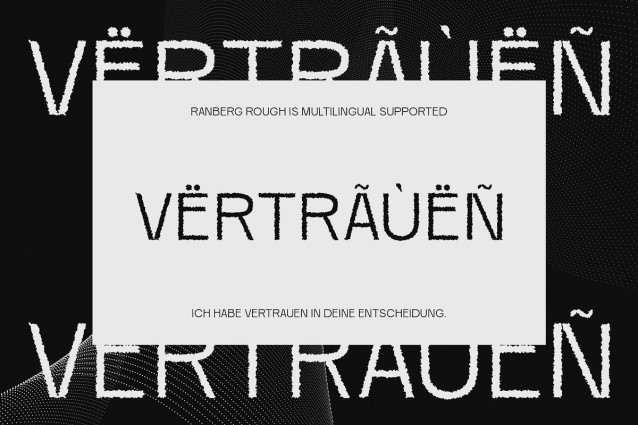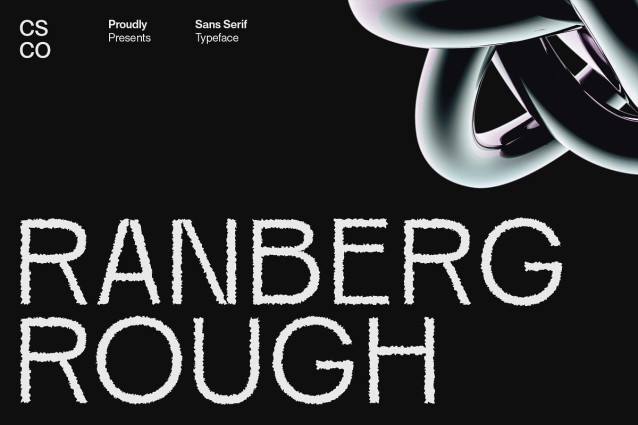
Ranberg Rough Font
Ranberg Rough Font is a modern sans-serif font that merges the clarity of grotesque forms with the precision of geometric construction. Its balanced proportions and clean structure offer a bold and assertive appearance while maintaining excellent readability across display and branding contexts.
Rough Effect for Handmade Grit Adding to its clean foundation, Ranberg Rough is overlaid with a distinctive rough texture. This detail introduces a sense of handcrafted imperfection, giving the font a raw and expressive feel. It’s as if each character has been stamped, scratched, or weathered—adding layers of character that speak to authenticity and creative individuality.
Bold and Balanced Aesthetic The interplay between its structured form and rough finish creates a striking visual balance. Ranberg Rough maintains a modern, polished sensibility while embracing an imperfect, almost industrial edge—ideal for projects that seek to be both refined and rebellious. It communicates both strength and humanity.
Perfect for Bold Branding and Creative Design Ideal for posters, apparel design, bold logos, packaging, or music-related visuals, Ranberg Rough provides the visual strength to stand out and the personality to connect. Its distinctive style makes it a go-to choice for projects that need to feel contemporary, edgy, and unapologetically original.